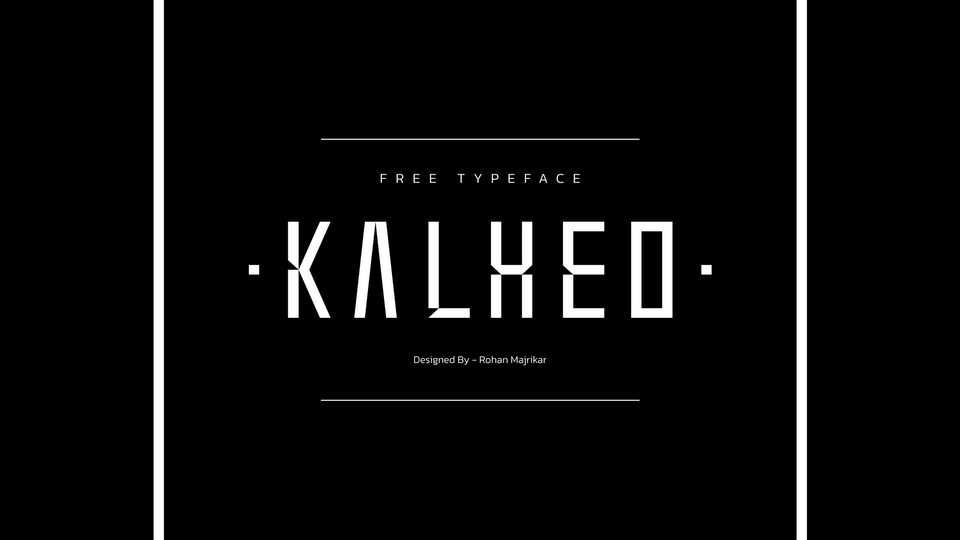
Kalheo Font › Fontesk – Download Grátis
Download Kalheo font, a modern and minimalist typeface that adheres to strict geometric principles, offering an impact typographic solution. Kalheo letterforms are meticulously designed with precision and clarity, featuring sharp angles and a strictly rectangular foundation.
Designer: Rohan Majrikar